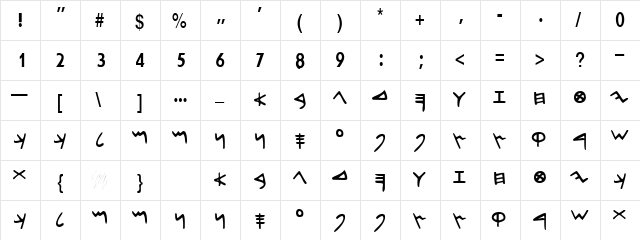
PhoenicianSSK Regular
Design Context for PhoenicianSSK Typeface
PhoenicianSSK is a composed and adaptable typeface that performs quietly and consistently across a wide range of design contexts.